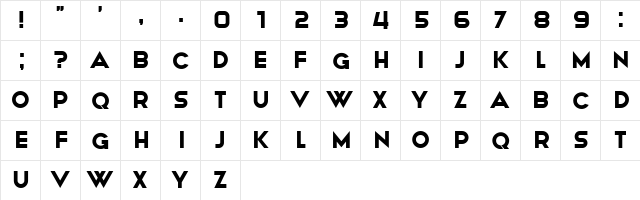
Chewer Regular
Design Context for Chewer Typeface
Chewer is a composed and adaptable typeface that performs quietly and consistently across a wide range of design contexts.